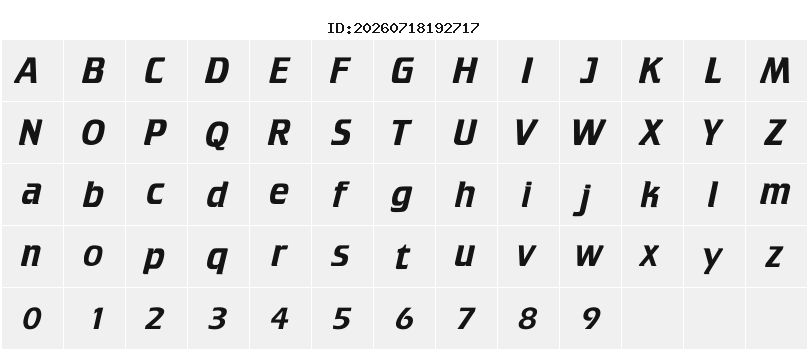
Crill Preview
• Font Name: Crill
• Full Font Name: Crill
• PostScript Name: Crill
About Crill.ttf
Crill.ttf is a modern, elegant sans-serif font designed for ultimate readability and visual harmony. Perfect for branding, headlines, web design, and print materials.